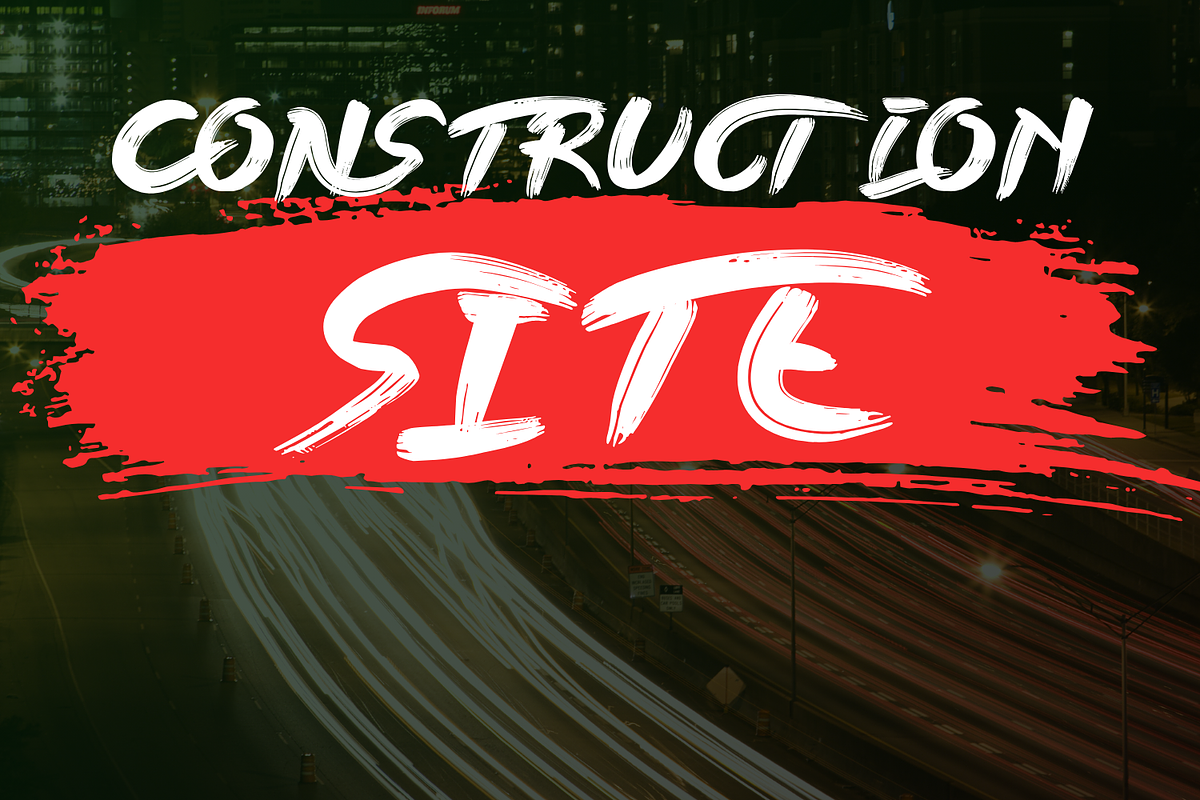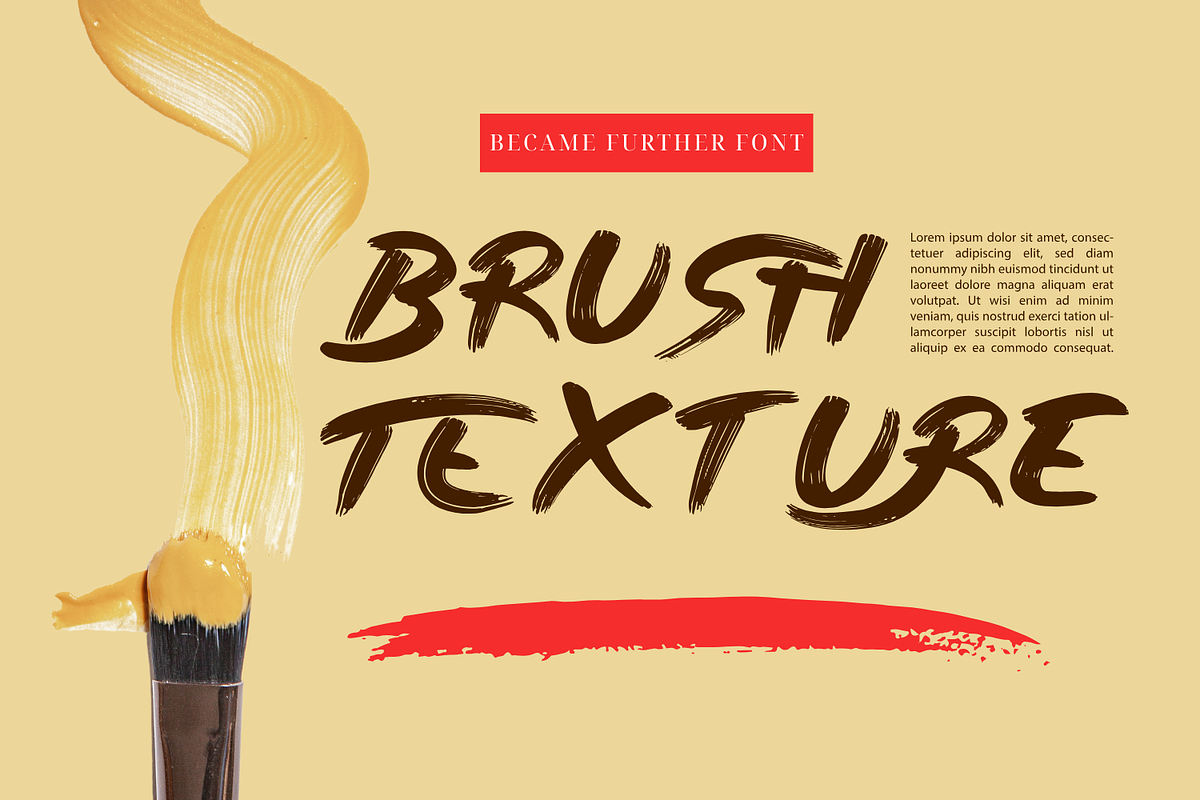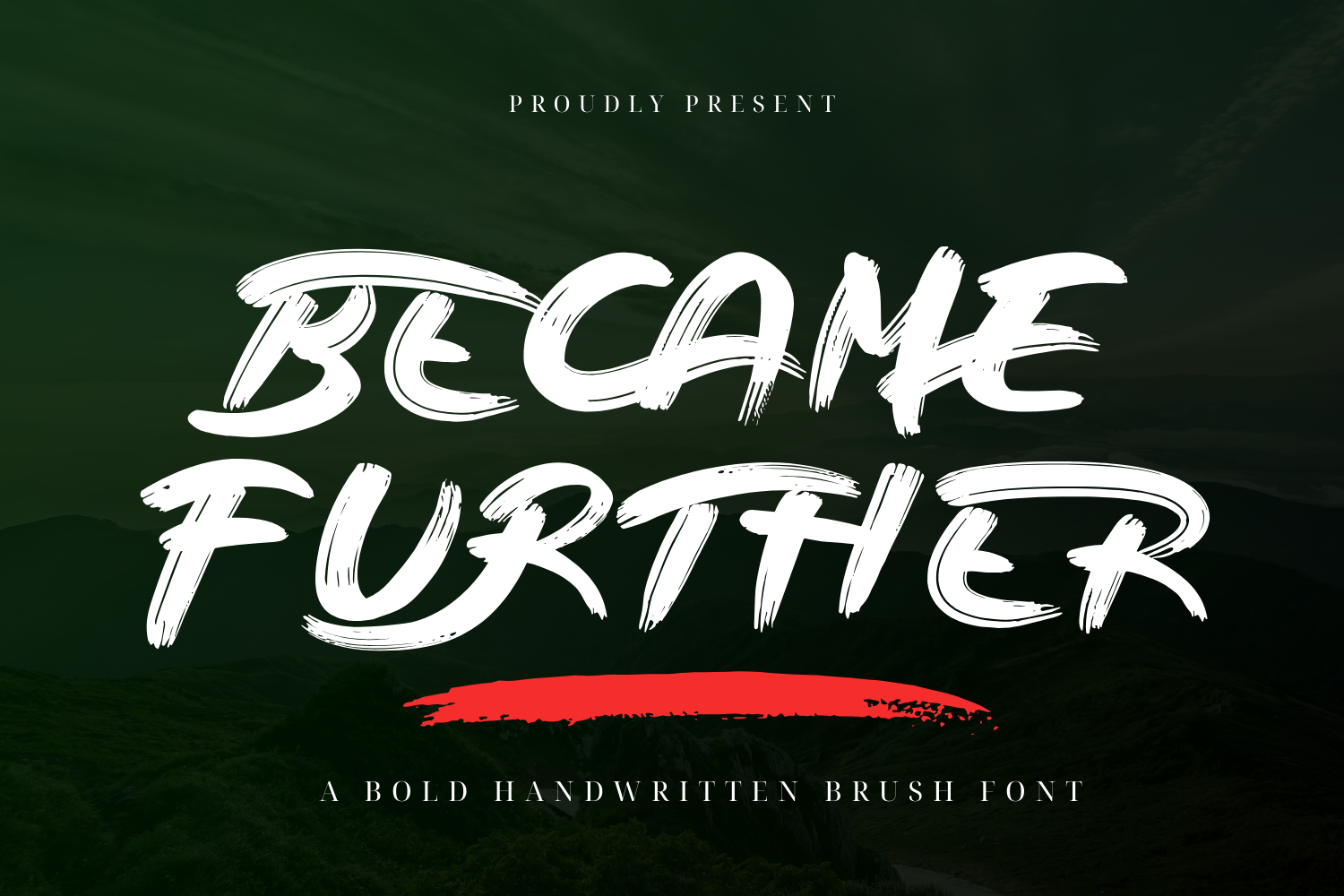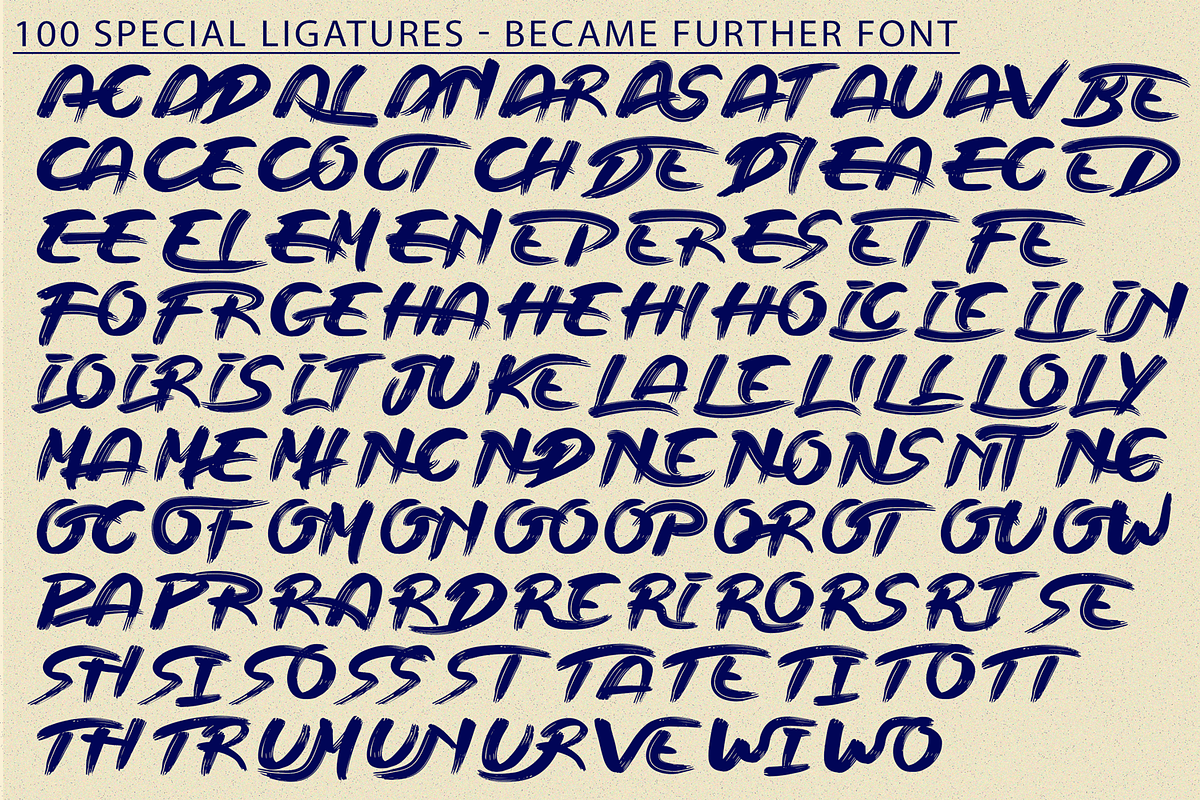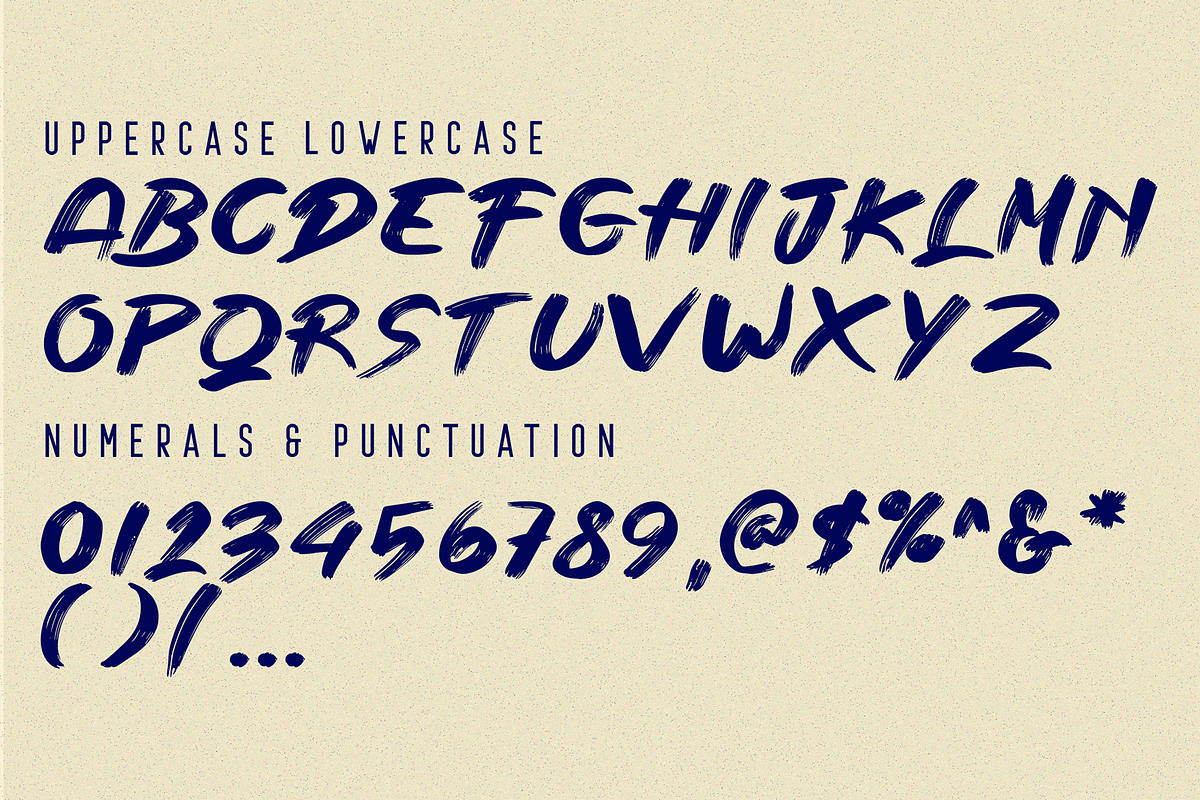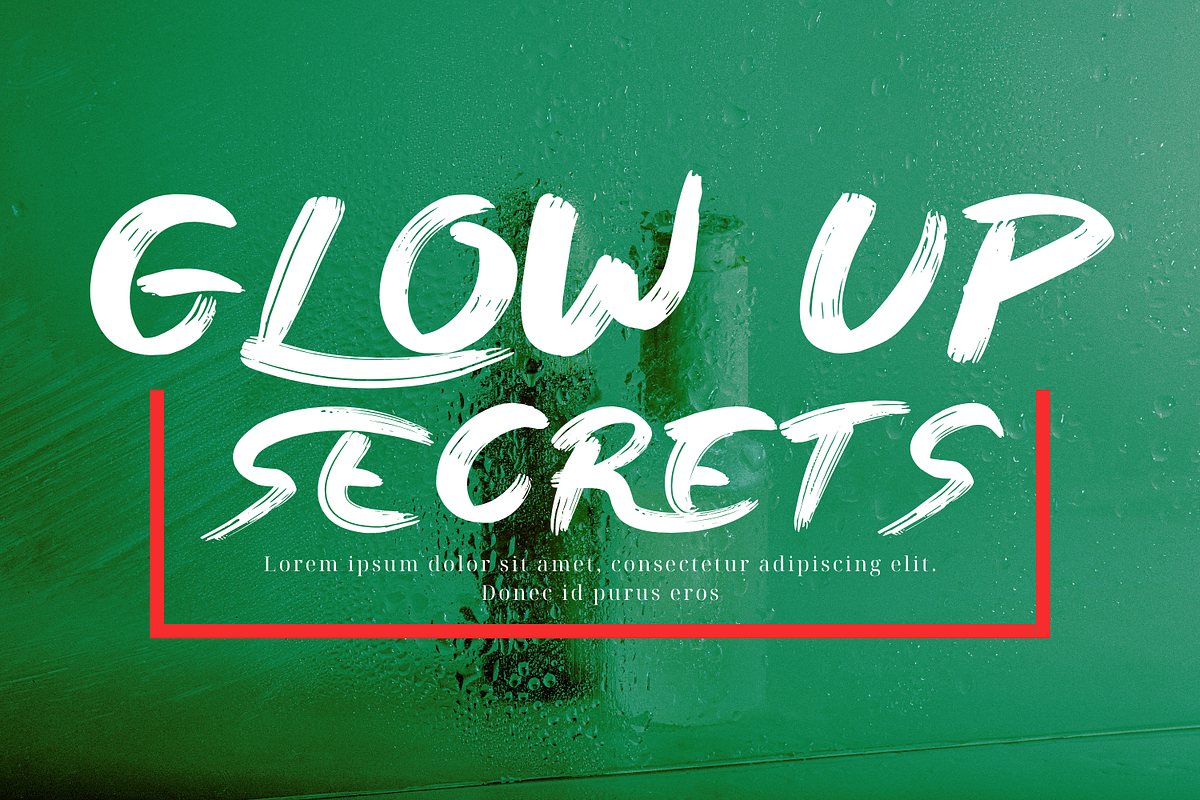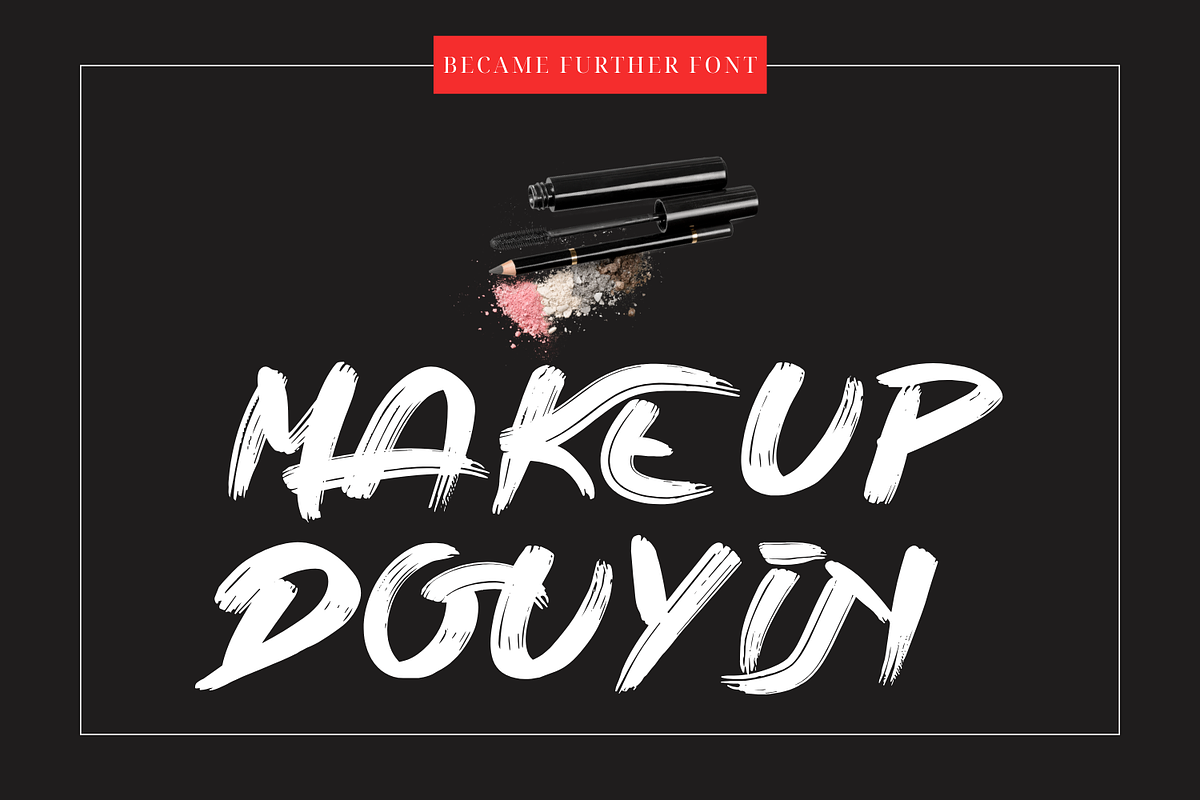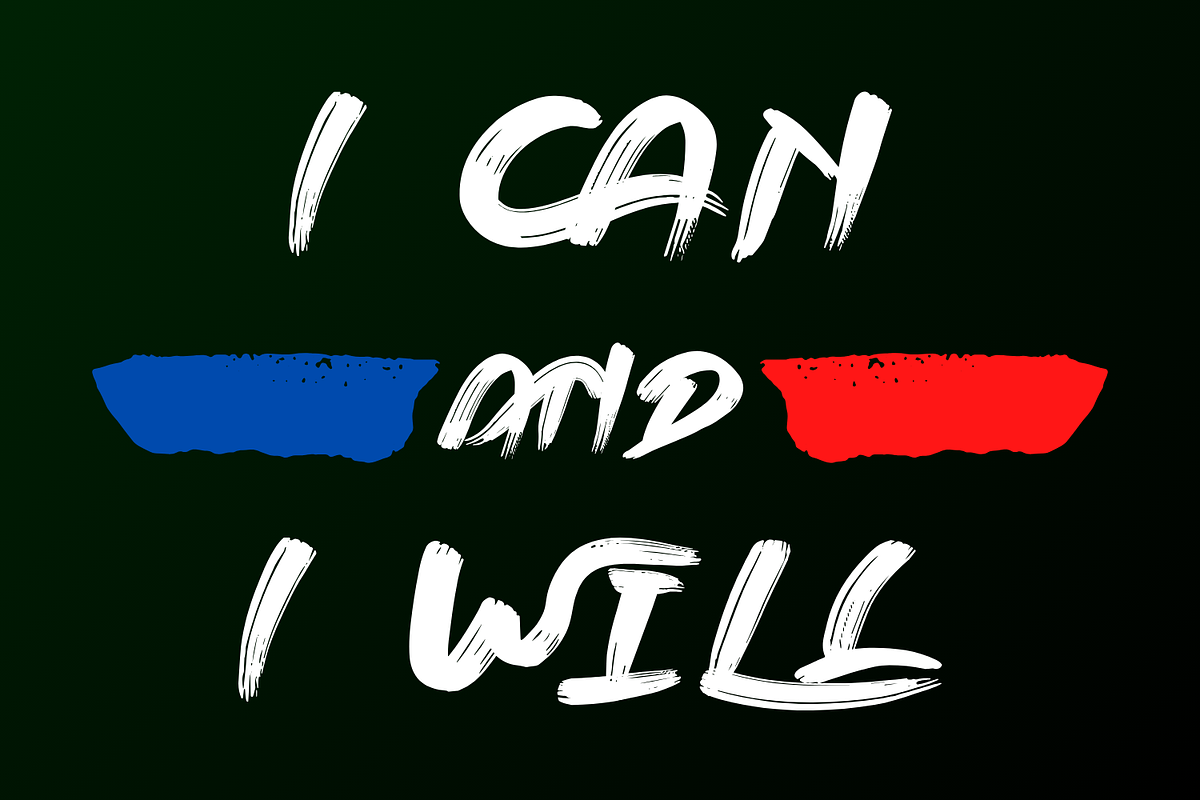
Became Further | Brush Font
Became Further Font – A Bold Handwritten Brush Font, a powerful and energetic bold handwritten brush font designed to bring impact and personality to your projects. With its rough brush strokes and dynamic flow, this font is perfect for posters, logos, branding, merchandise, album covers, and more.
✔ Uppercase Letters
✔ 100+ Unique Ligatures for natural brush effects
✔ Numerals & Punctuation for complete versatility
✔ Accented Characters for multilingual support
Whether you're working on a grunge, urban, or creative project, Became Further will add a bold and fearless touch to your typography.
About 100 ligatures combined with Stylistic Alternates Font:
AC AD AL AN AR AS AT AU AV BE CA CE CH CO CT DE DI EA EC ED EE EL EM EN EP ER ES ET FE FO FR GE HA HE HI HO IE IC IL IN IO IR IS IT JU KE LA LE LI LL LO LY MA ME MI NC ND NE NG NO NT NS OC OF OM ON OO OP OR OT OU OW PA PR RA RD RE RI RO RS RT SE SH SI SO SS ST TA TE TH TI TO TR TT UM UN UR VE WI WO